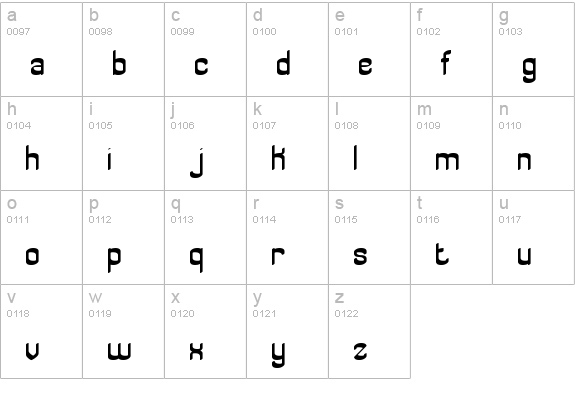
Jargon BRK Font Details
Jargon BRK font is a unique and modern typeface that combines sleek lines with a bold and dynamic aesthetic. This versatile font is perfect for a wide range of design projects, from branding to posters to websites. Its sharp edges and clean design make it stand out from the crowd and give your text a strong and impactful presence. And the best part? Jargon BRK font is completely free to download at FontsMarket.com! This means you can add this stylish font to your collection without breaking the bank. Whether you're a graphic designer, a web developer, or just someone looking to spice up their projects, Jargon BRK font is a fantastic choice that won't cost you a dime. Download it today and elevate your designs with this sleek and modern typeface.